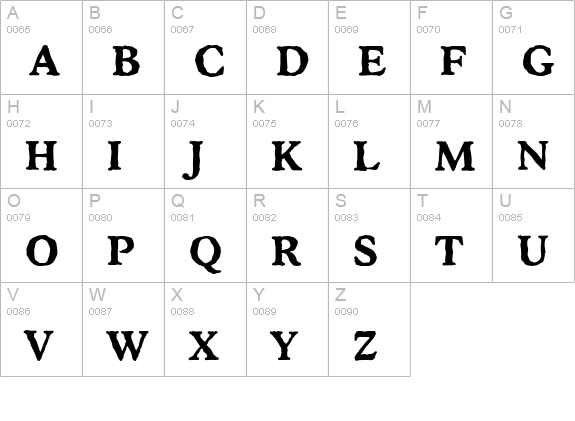
StratfordAntique-Bold is a strong, high-contrast variant in the StratfordAntique typeface family \xE2\x80\x94 well suited to headlines, attention-grabbing titles, and strong calls-to-action.
StratfordAntique-Bold font is a timeless and elegant typeface that brings a touch of vintage charm to any design project. Its bold and striking letterforms make a strong statement while maintaining a sense of sophistication. This font is perfect for creating eye-catching headlines, logos, and branding materials. What sets StratfordAntique-Bold apart is its versatility - it can be used in both modern and traditional design contexts with ease. The font's classic appeal adds a touch of nostalgia to any project, making it the perfect choice for those looking to add a touch of vintage flair. Best of all, this exquisite font is available for free download at FontsMarket.com. So why wait? Elevate your designs with the timeless beauty of StratfordAntique-Bold font today!